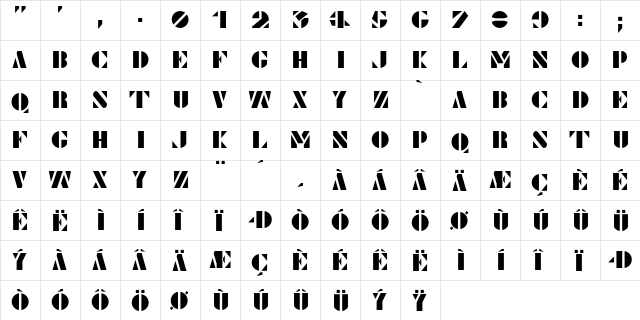
Le Pochoir Regular
Design Context for Le Pochoir Typeface
Le Pochoir is a composed and adaptable typeface that performs quietly and consistently across a wide range of design contexts.